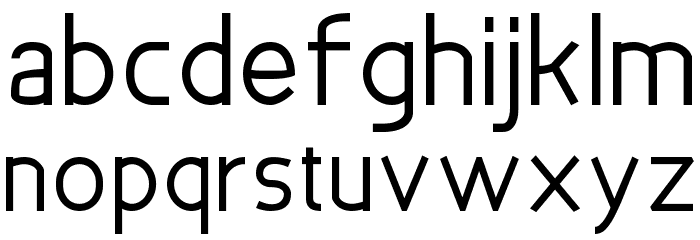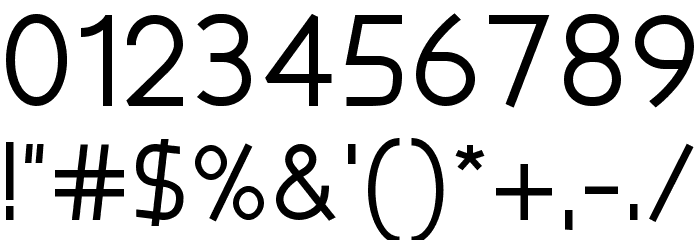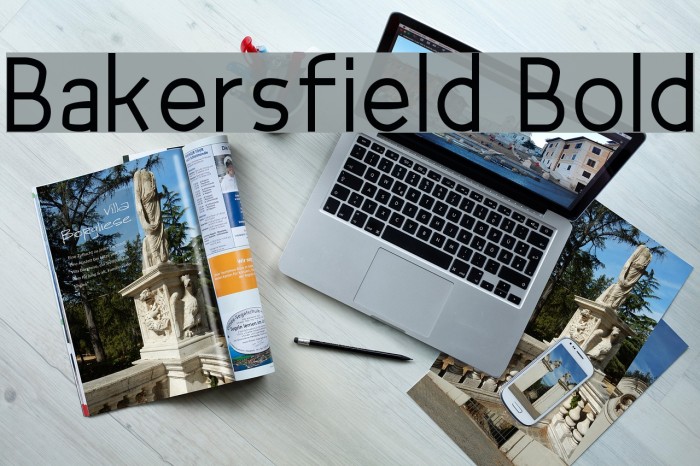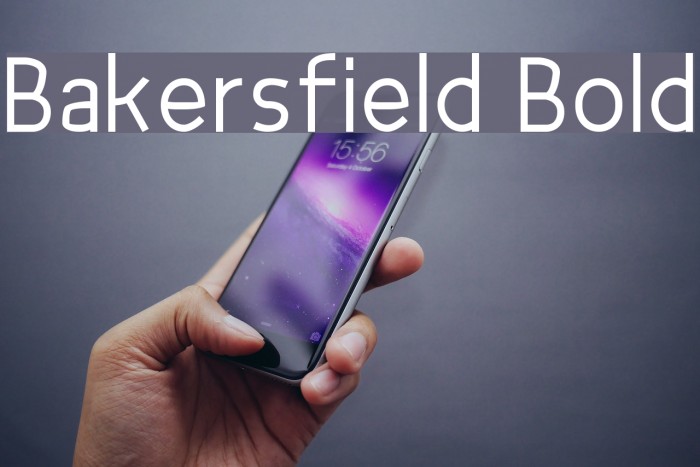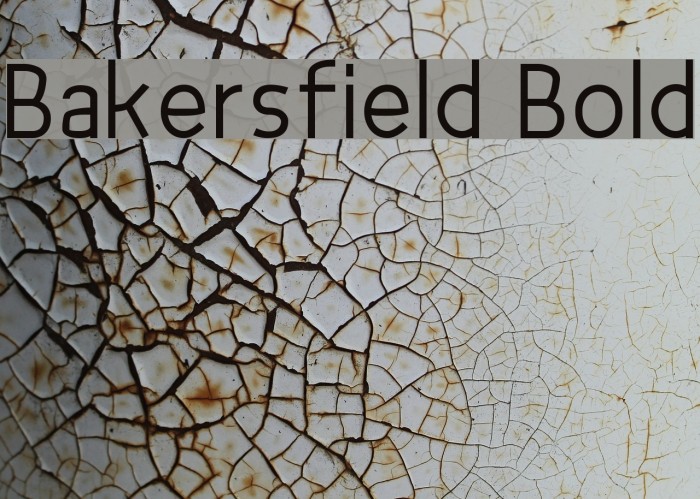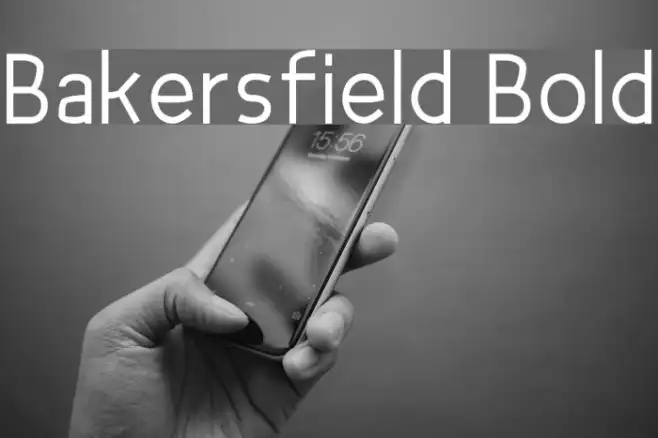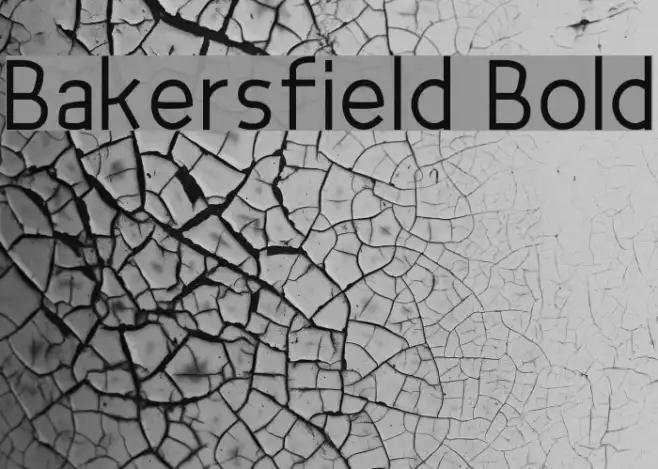
Bakersfield Bold Font
This font exhibits a clean and modern sans-serif design, characterized by its bold and uniform stroke weight. The characters are well-proportioned, with a geometric influence that provides a sense of balance and clarity. The uppercase letters are tall and commanding, while the lowercase letters maintain a consistent x-height, contributing to excellent readability. The numerals are distinct and easy to distinguish, making them suitable for various applications. The special characters are crafted with precision, ensuring they blend seamlessly with the rest of the typeface. Overall, this font conveys a sense of professionalism and contemporary style.
A bold, modern sans-serif font with geometric influences and excellent readability.
- Proposed Projects: Ideal for branding, advertising, digital media, and editorial design projects.
- Use Case: Headlines, Logos, Digital media